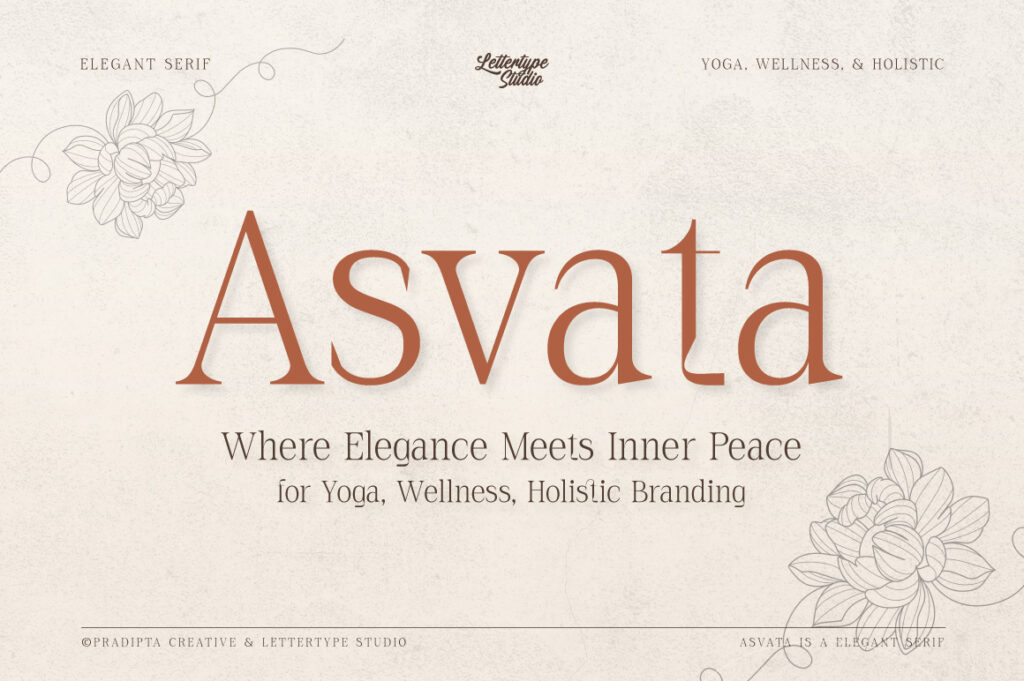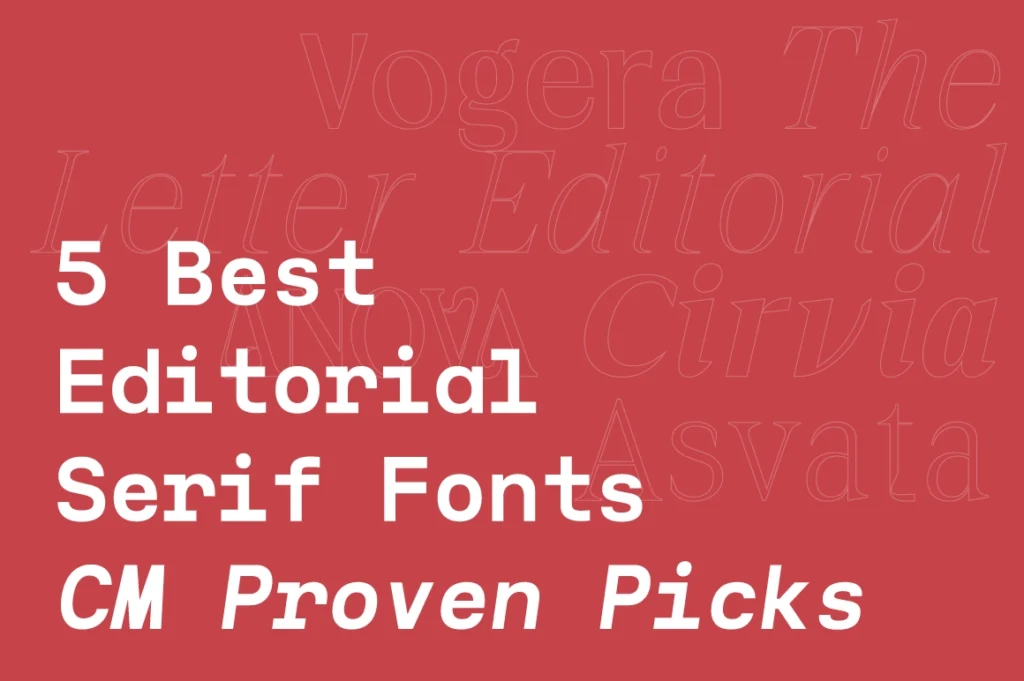
5 Best Editorial Serif Fonts — CM Proven Picks
Choosing the right serif font is essential for branding and editorial design. On Creative Market, designers tend to invest in typefaces that feel timeless, elegant, and reliable—fonts that can be used confidently across logos, publications, and long-term brand systems.
Based on Creative Market sales data from the past six months, these five editorial serif fonts from Lettertype Studio have consistently proven their value through real purchases and repeat buyers.
1. Vogera
The Leading Editorial Serif on Creative Market
Vogera is the strongest performer across multiple months on Creative Market. Its repeated sales indicate high trust from branding designers and publishers who need a serif font that feels refined, professional, and timeless.
With balanced proportions and a calm editorial tone, Vogera works exceptionally well for premium branding and publishing projects.
Brand identity, magazines, luxury logos, editorial layouts, and websites.
2. The Letter Editorial
Built for Professional Editorial Design
The Letter Editorial is designed specifically for editorial use, and the data reflects that. It’s consistently purchased by content creators, publishers, and designers working on professional publications.
Its clean rhythm and readable structure make it suitable for both headlines and body text, ensuring clarity without sacrificing elegance.
Editorial layouts, blogs, newspapers, publishing, and brand storytelling.
3. Anova
Modern Serif with Branding Versatility
Anova offers a modern serif approach that feels elegant yet approachable. Creative Market buyers consistently choose Anova for branding projects that require a contemporary look without losing classic serif character.
It’s a flexible typeface that fits both visual identities and premium design systems.
Branding, lifestyle brands, packaging, logos, and visual identity systems.
4. Cirvia
A Professional Serif Family for Serious Use
Cirvia is often purchased as a full family, which indicates real-world application rather than experimentation. Its clean construction and editorial balance make it a reliable choice for structured design systems.
Designers rely on Cirvia when consistency and professionalism are key.
Corporate branding, editorial systems, print and digital publications.
5. Asvata
Calm, Elegant, and Purposeful
Asvata appeals to designers seeking a serif font with a more mindful and elegant presence. While more niche, it attracts loyal buyers who value subtle sophistication and clarity.
This font works best in projects that prioritize atmosphere and refined aesthetics.
Boutique branding, wellness brands, editorial visuals, and premium layouts.